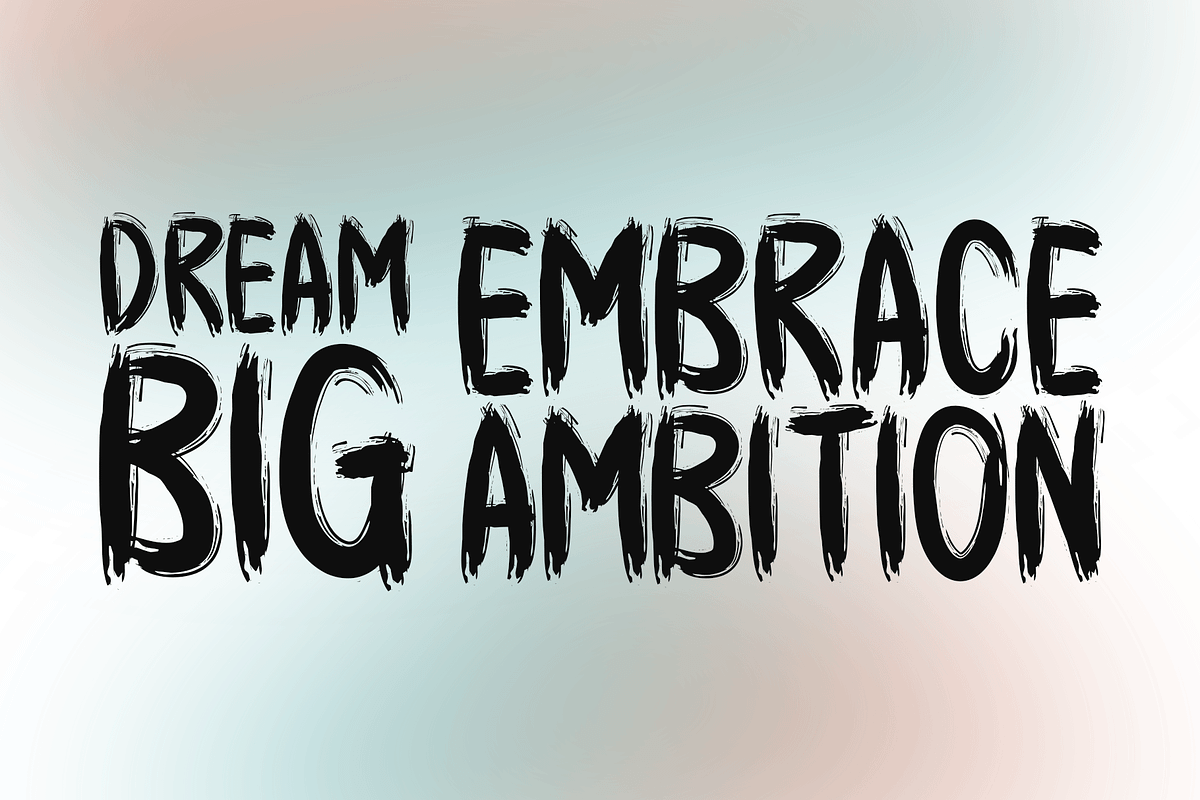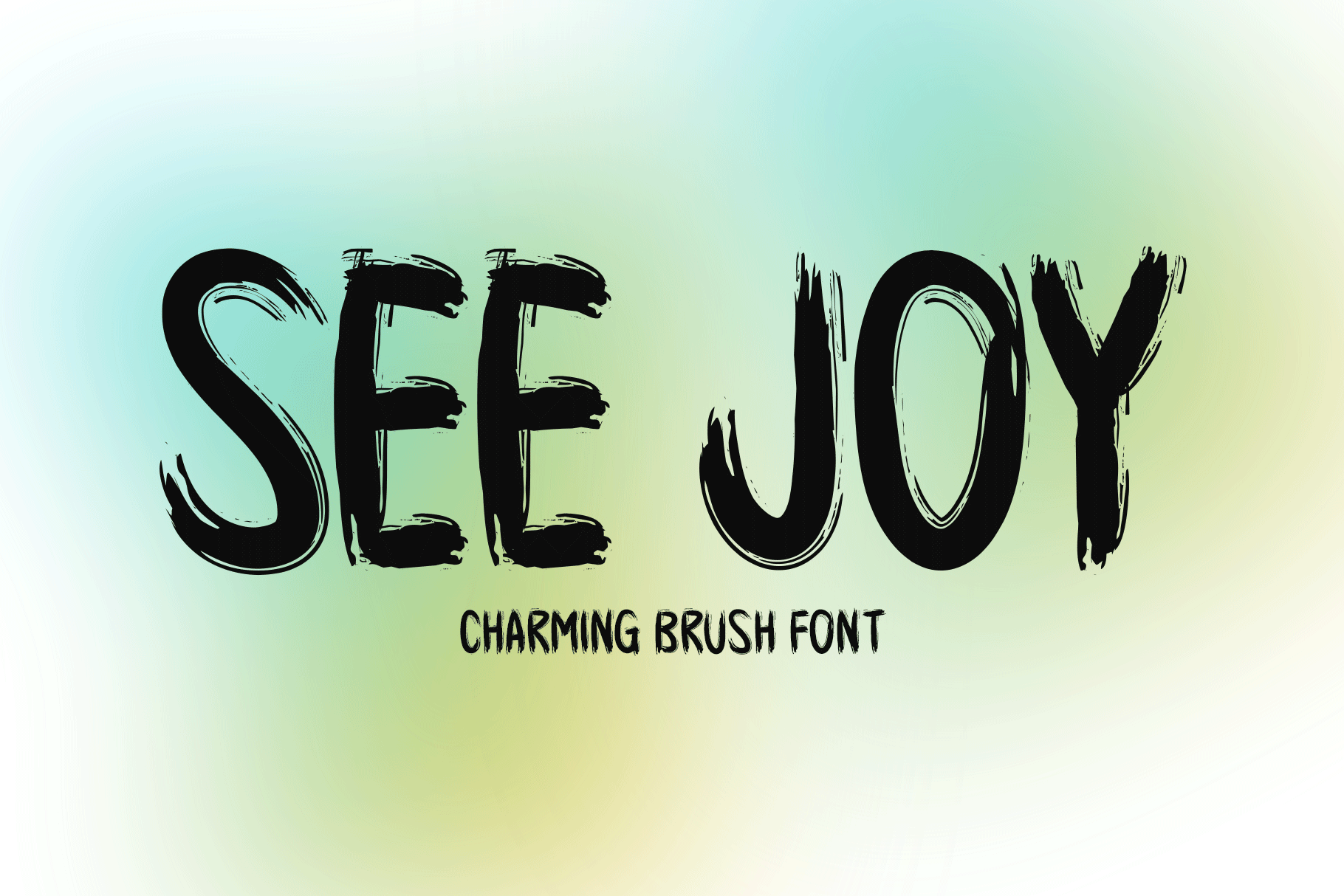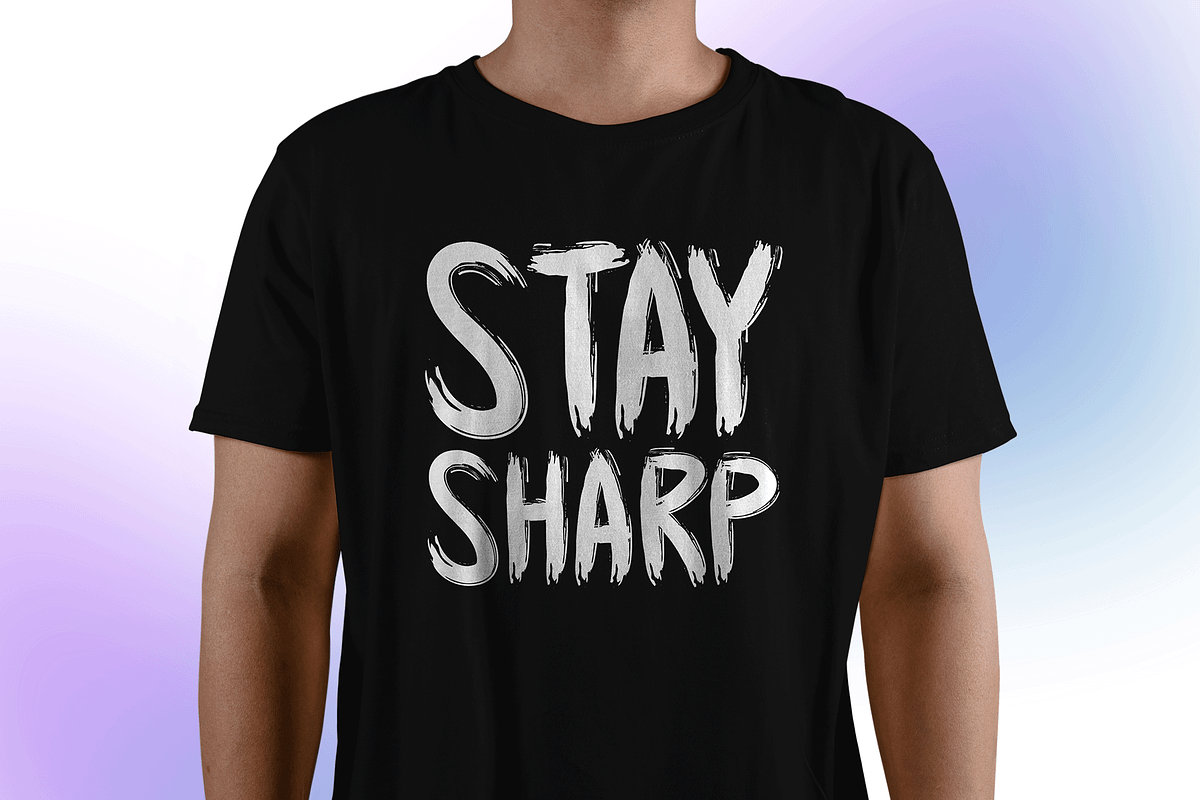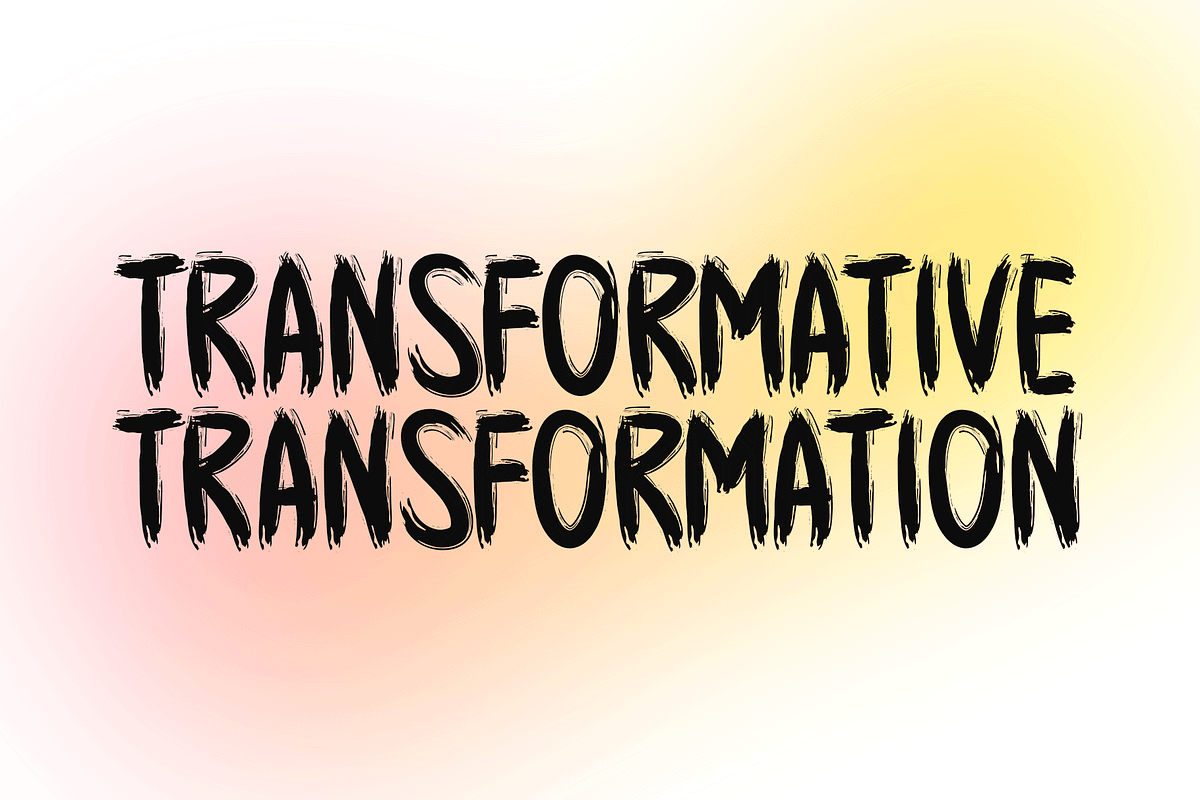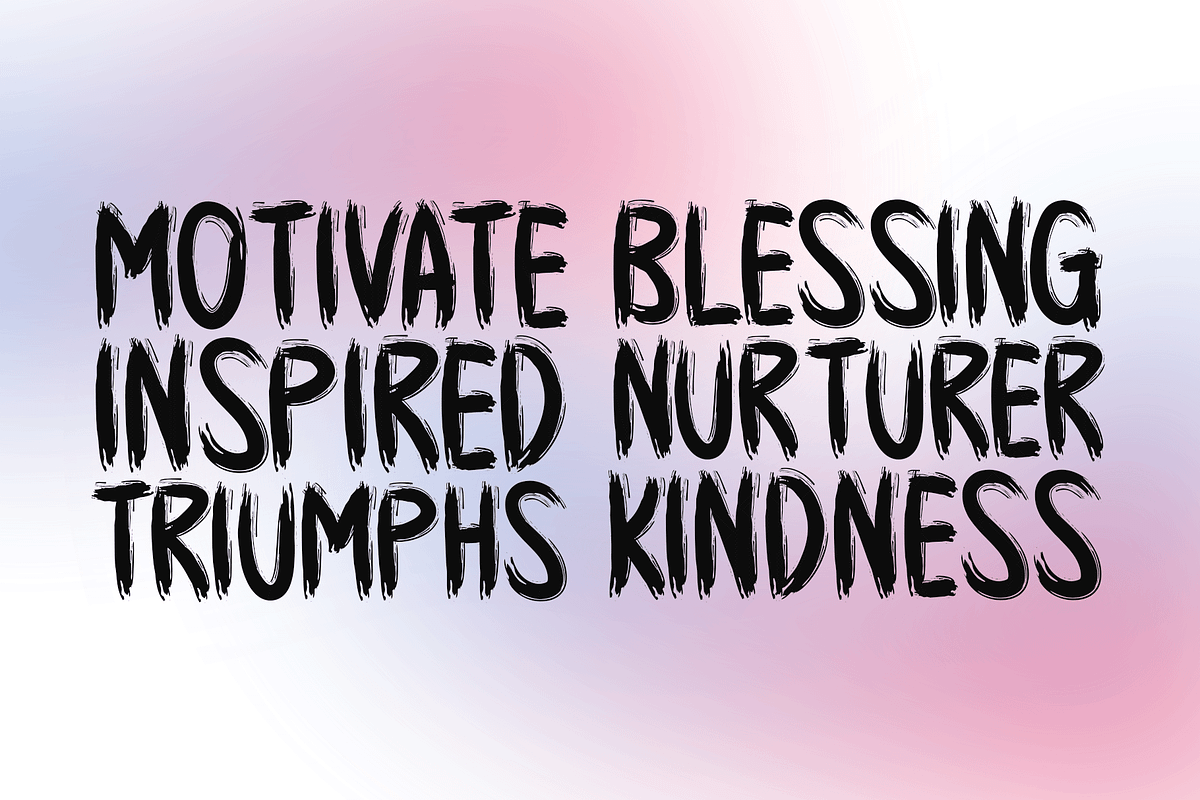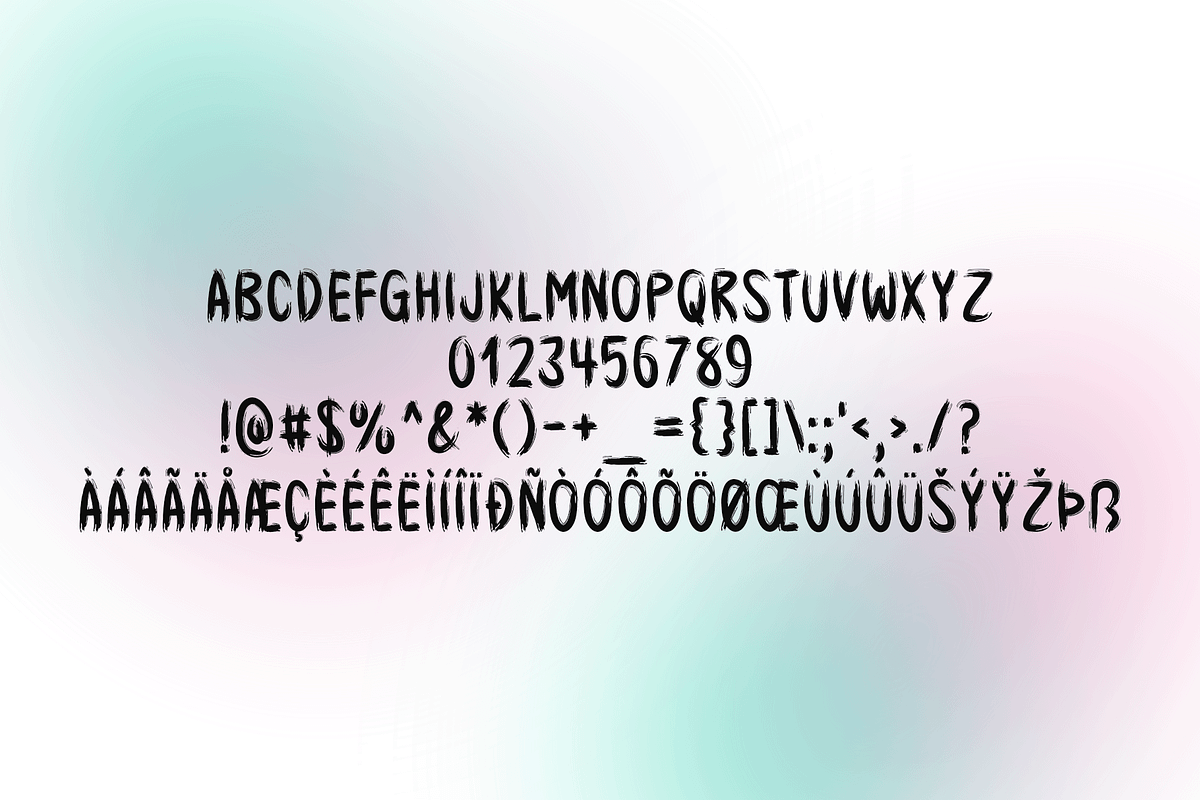
See Joy Typeface
Introducing See Joy!
See Joy is a lively brush-style font that blends charm with expressive, hand-painted strokes. Its dynamic look makes it an excellent choice for a wide range of creative projects, including stationery, t-shirts, branding, posters, music covers, flyers, and digital graphics. Whether you're aiming for a bold artistic feel or a warm handcrafted touch, See Joy adds personality, movement, and visual impact to every design.
Includes a range of multilingual support